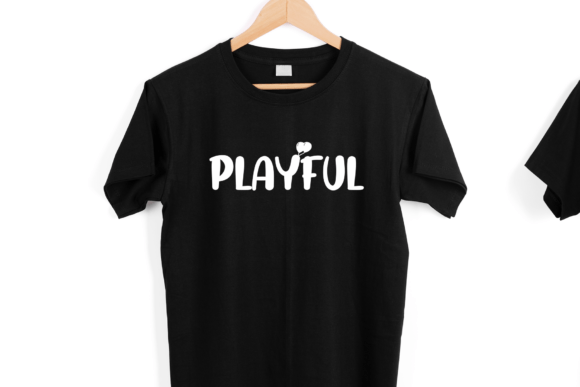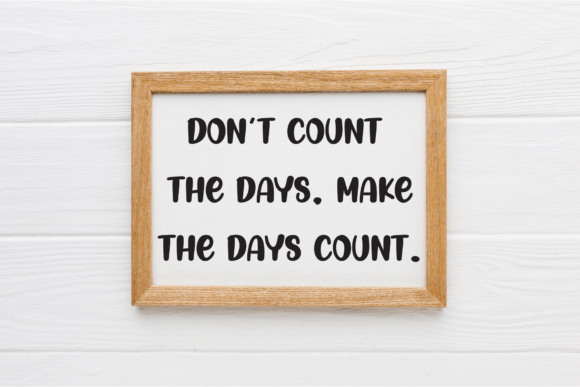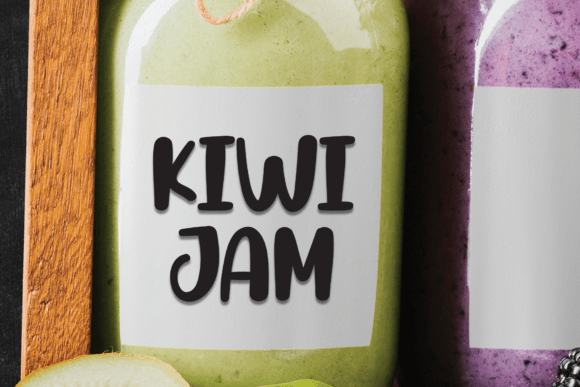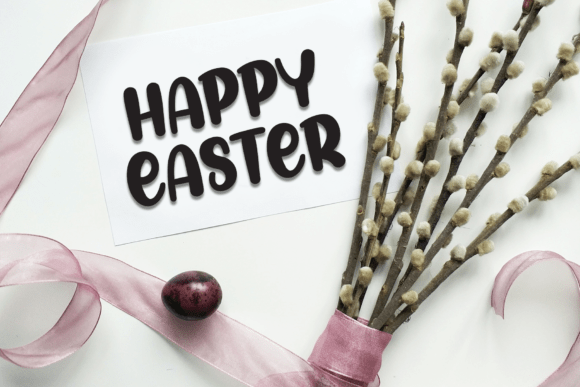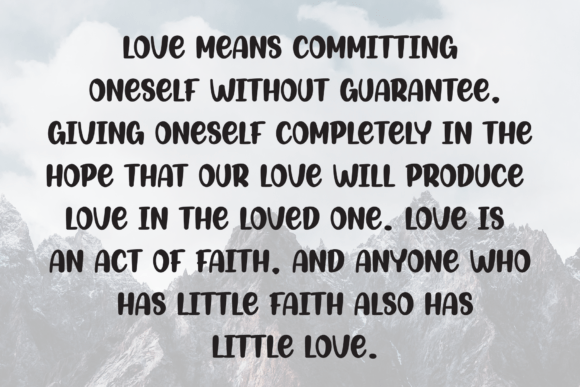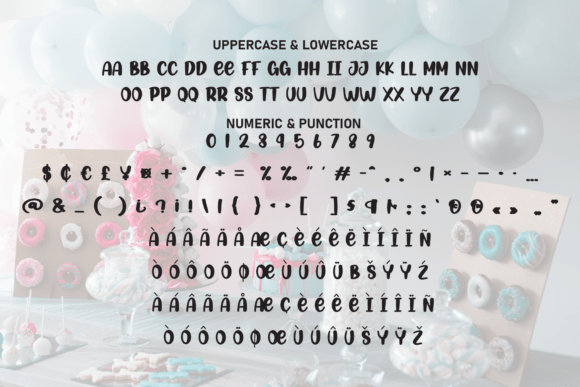
When Words Become Whimsical: The Joy of Balloon Party Font
Have you ever been scrolling through your phone’s camera roll, reminiscing about a special day, and stumbled upon a wedding invitation that made your heart skip a beat? For many of us, it’s the typography that sets the tone for the celebration – a delicate dance of letters that whispers ‘love’ and ‘joy’. The Balloon Party Font is one such charming creation that captures the essence of a whimsical gathering.
This delightful handwritten display font is the perfect blend of friendliness and playfulness, making it an ideal choice for crafting wedding invitations, greeting cards, or any design element that requires a sprinkle of magic. With its effortlessly lovely strokes, the Balloon Party Font weaves personality and light-heartedness into each text, transforming the simplest of messages into a cheerful experience that’s sure to bring a smile to anyone’s face.
Balloon Party Font Key Features
- Font Family: Balloon Party is a playful, handwritten font family, ideal for creating whimsical and festive designs.
- Unique Characteristics: Features a bouncy, hand-drawn feel with varying line widths, giving it a distinctive and eye-catching appearance.
- Font Styles: Includes multiple font styles, such as Regular, Italic, Bold, and Bold Italic, allowing for versatility in design applications.
Designer Review: Balloon Party Font
At first glance, the Balloon Party Font seems like a fun and playful addition to any design project. ✨ The rounded edges and vibrant colors immediately evoke a sense of excitement and energy. The font is perfect for creating eye-catching headings or titles that demand attention.
One of the things that really stands out about this font is its versatility. ✨ It can be used for a variety of purposes, from party invitations to social media graphics. The font is also highly customizable, allowing designers to easily adjust the size, color, and style to fit their needs.
- ⚠️ The font may be too flashy or overwhelming for more subdued designs.
- ⚠️ The bold lines and bright colors can be difficult to read in certain situations, particularly at smaller font sizes.
- ⚠️ The font may not be suitable for professional or corporate designs, where a more formal tone is required.
Overall, the Balloon Party Font is a great choice for designers looking to add a pop of color and energy to their projects. While it may not be suitable for every design, it’s definitely a fun and versatile option to have in your toolkit.
Tips for Getting the Most Out of the Balloon Party Font
Use the Balloon Party Font for playful and festive designs, such as party invitations, birthday cards, and social media graphics.
Experiment with different font sizes and styles to create a visually appealing design.
The Balloon Party Font is perfect for:
- Birthday cards and gift tags
- Social media graphics and posts
- Wedding invitations and decorations